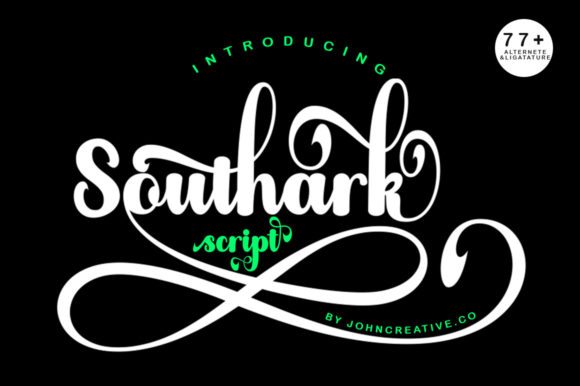
Prepare yourself to be mesmerized by the breathtaking beauty of Southark Script, a script font that captures the essence of timeless elegance. This exquisite creation is a masterpiece crafted by the talented hands of mr.johncreative.co, who poured their heart and soul into designing a font that would ignite your creativity.
With its delicate curves and graceful lines, Southark Script exudes a charm that is simply irresistible. Each letter is a work of art, carefully crafted to evoke a sense of sophistication and romance. Whether you're designing wedding invitations, creating heartfelt love letters, or adding a touch of elegance to your branding, this font will elevate your designs to new heights.
But Southark Script is more than just a pretty face. It's a powerful tool that will empower you to express your creativity with confidence. Its versatility knows no bounds, making it the perfect choice for a wide range of projects. From invitations to branding, from social media posts to website design, Southark Script will add a touch of magic to everything you create.
And because we believe that everyone deserves to experience the joy of beautiful typography, we've made Southark Script PUA encoded. This means that you can access all of the glyphs and swashes with ease, giving you endless possibilities to customize your designs.